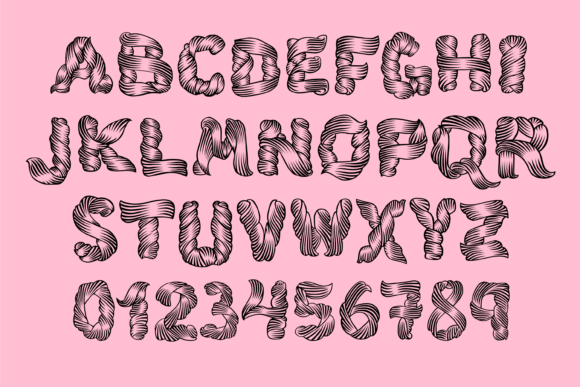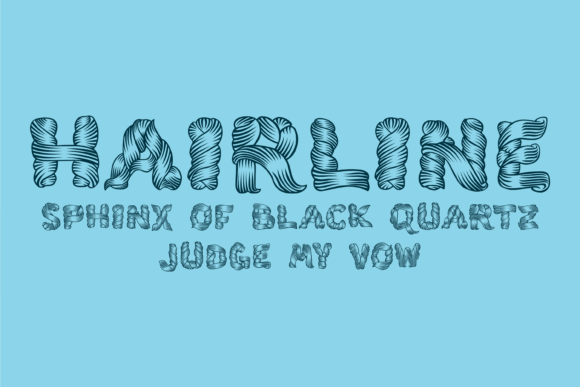
Hairline Font: The Ultimate Guide to a Soft and Unique Display Font
Are you tired of using the same old fonts for your design projects? Look no further than Hairline Font, a highly detailed display font that emulates curly hair. With its soft and unique texture, Hairline Font is perfect for designers and crafters looking to add a touch of elegance and whimsy to their work.
What is Hairline Font?
Hairline Font is a display font designed to mimic the look and feel of curly hair. Its highly detailed texture gives it a lifelike quality that’s sure to turn heads. Whether you’re working on a logo, a headline, or a decorative piece, Hairline Font is the perfect choice for adding a touch of softness and sophistication.
Key Features of Hairline Font
- Highly detailed texture: Hairline Font features a highly detailed texture that emulates the look and feel of curly hair.
- Soft and unique: With its soft and unique texture, Hairline Font is perfect for designers and crafters looking to add a touch of elegance and whimsy to their work.
- Display font: Hairline Font is designed specifically as a display font, making it perfect for headlines, titles, and other decorative pieces.
Uses for Hairline Font
Hairline Font is perfect for a variety of design projects, including:
- Logos and branding: Add a touch of elegance and sophistication to your logo or branding with Hairline Font.
- Headlines and titles: Use Hairline Font to create eye-catching headlines and titles for your website, blog, or social media channels.
- Decorative pieces: Hairline Font is perfect for creating decorative pieces, such as posters, flyers, and brochures.
- Crafting projects: Hairline Font is also great for crafters who want to add a touch of elegance and whimsy to their projects, such as scrapbooking, card making, and journaling.
Tips for Using Hairline Font
Here are a few tips for using Hairline Font effectively:
- Use it sparingly: Hairline Font is a display font, so it’s best to use it sparingly to avoid overwhelming your design.
- Pair it with a simple font: Pair Hairline Font with a simple font to create contrast and make your design stand out.
- Experiment with colors: Hairline Font looks great in a variety of colors, so don’t be afraid to experiment and find the perfect color for your design.
Hairline Font is a highly detailed display font that emulates curly hair and is perfect for designers and crafters looking to add a touch of elegance and whimsy to their work. With its soft and unique texture, Hairline Font is sure to turn heads and make your design stand out. Whether you’re working on a logo, a headline, or a decorative piece, Hairline Font is the perfect choice.